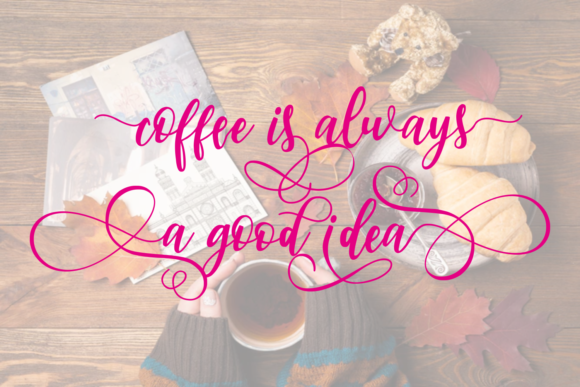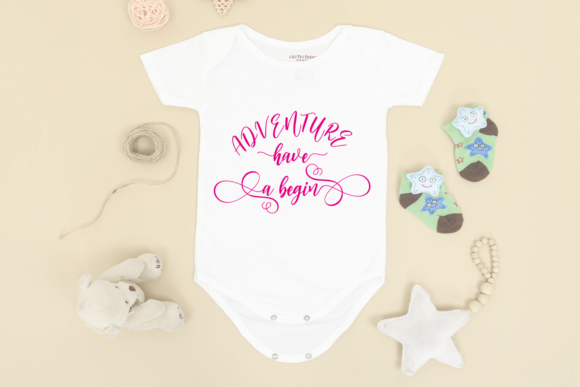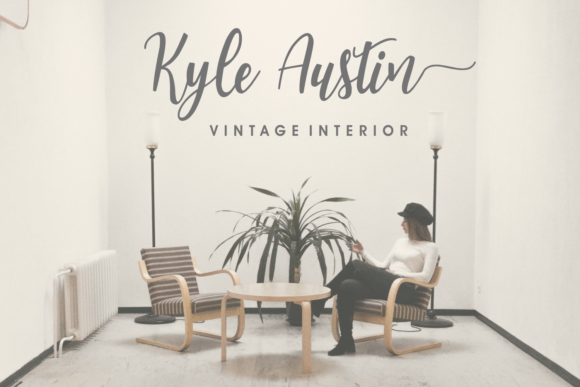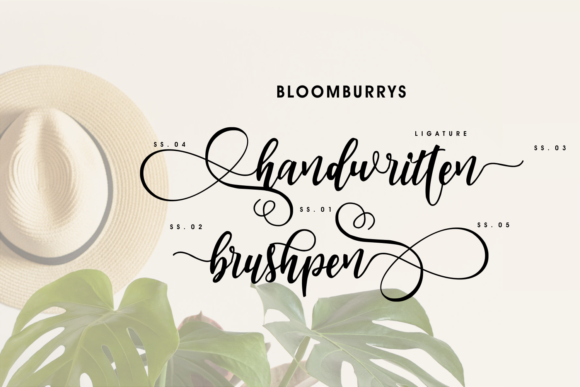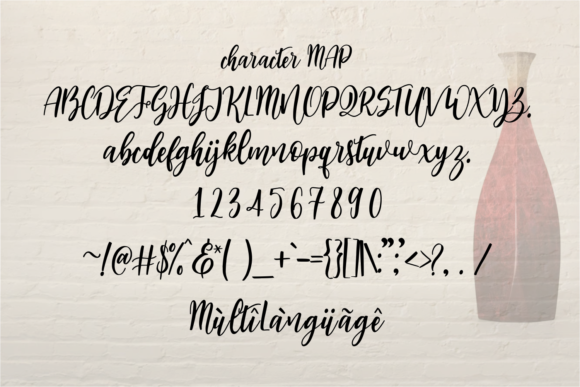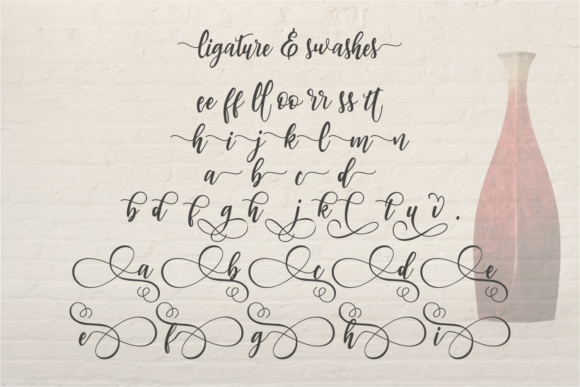
Bloomburrys Font: Add a Touch of Whimsy to Your Designs
Bloomburrys is a lovely script font that has been making waves in the design community with its charming, playful characters that seem to dance along the baseline. This delightful font is perfect for designers and crafters looking to add a touch of whimsy to their creative projects. In this article, we’ll take a closer look at Bloomburrys Font, its features, and how you can use it to make your designs stand out.
What is Bloomburrys Font?
Bloomburrys Font is a script font that boasts a unique, hand-drawn feel. Its characters are designed to be playful and charming, with a sense of movement and energy. The font’s letters seem to dance along the baseline, creating a sense of joy and spontaneity. This makes Bloomburrys Font perfect for designs that require a personal touch, such as invitations, greeting cards, and social media graphics.
Key Features of Bloomburrys Font
- Playful Characters: Bloomburrys Font features playful characters that are sure to add a smile to your designs. Each letter is carefully crafted to create a sense of movement and energy.
- Hand-Drawn Feel: The font has a hand-drawn feel that gives it a unique, organic look. This makes it perfect for designs that require a personal touch.
- Script Style: Bloomburrys Font is a script font that is perfect for adding a touch of elegance and sophistication to your designs.
- Easy to Read: Despite its playful nature, Bloomburrys Font is easy to read, making it perfect for use in a variety of design projects.
How to Use Bloomburrys Font in Your Designs
Bloomburrys Font is a versatile font that can be used in a variety of design projects. Here are a few ideas to get you started:
- Invitations: Use Bloomburrys Font to create beautiful, one-of-a-kind invitations for weddings, birthday parties, and other special occasions.
- Greeting Cards: Add a personal touch to your greeting cards with Bloomburrys Font. It’s perfect for creating heartfelt, handmade cards.
- Social Media Graphics: Use Bloomburrys Font to create eye-catching social media graphics that are sure to grab attention.
- Branding: Bloomburrys Font can also be used in branding projects, such as logos and packaging design.
Tips for Getting the Most Out of Bloomburrys Font
Here are a few tips for getting the most out of Bloomburrys Font:
- Experiment with Colors: Bloomburrys Font looks great in a variety of colors. Experiment with different colors to find the perfect combination for your design.
- Mix and Match: Don’t be afraid to mix and match Bloomburrys Font with other fonts. This can create a unique, eye-catching look.
- Use it Sparingly: Bloomburrys Font is a statement font, so use it sparingly. This will help it stand out and make a bigger impact.
Bloomburrys Font is a lovely script font that is sure to add a touch of whimsy to your designs. Its playful characters, hand-drawn feel, and script style make it perfect for a variety of design projects. Whether you’re a designer or crafter, Bloomburrys Font is a great addition to your font collection. So why not give it a try and see how it can make your designs stand out?
- What type of font is Bloomburrys Font? Bloomburrys Font is a script font.